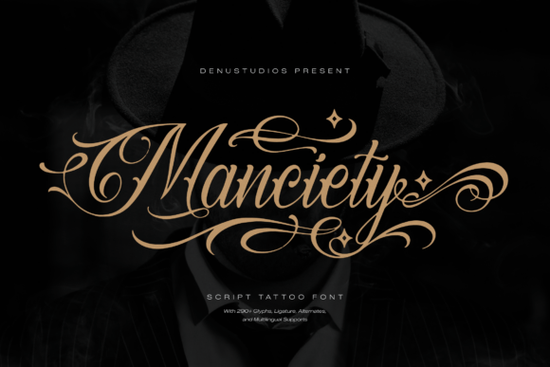
If you're looking for a bold, expressive script font that stands out in high-end branding, Manciety Font is a strong choice. It’s designed with calligraphic detail and dramatic contrast, making it ideal for projects where impact matters like logos, packaging, or editorial design. The font captures the raw energy of classic Chicano lettering while maintaining a polished, artisanal feel.
What makes Manciety Font special?
Manciety isn’t just another script font it’s built for statement-making designs. Its high-contrast strokes and sweeping flourishes give it a dynamic presence. Whether you're designing a luxury streetwear label or a custom car wrap, this font adds instant visual weight and character. It works especially well when paired with clean layouts or minimalist backgrounds, letting the type do the talking.
The style leans into masculine energy without being overly aggressive. Think of it as refined rebellion: powerful but intentional. This balance makes it suitable for brands that want to feel authentic and distinctive, not trendy or fleeting.
Where can I use Manciety Font effectively?
Designers often turn to Manciety for:
- Branding – Ideal for masculine grooming products, premium skincare lines, or niche lifestyle brands.
- Apparel & Merchandise – Great for t-shirts, hoodies, and caps, especially in streetwear or urban fashion.
- Automotive Design – Perfect for custom vehicle wraps, decals, or interior branding.
- Editorial & Print – Works beautifully in magazine headers, book covers, or event posters.
You’ll find it fits naturally in any project where you want to communicate strength, craftsmanship, and individuality.
How does it compare to other fonts in its category?
While many script fonts lean toward softness or femininity, Manciety brings a different kind of elegance one rooted in resilience and artistry. If you’ve used similar fonts like Delighton Script or Phatin Angler, you’ll notice Manciety has more structure and sharper contrasts. It’s less delicate, more commanding.
For those who prefer a slightly wilder look, Messy Type Bundle offers a looser, hand-drawn feel. But if you need precision with personality, Manciety strikes a better balance between control and flair.
Looking for something lighter? The Skinny Font delivers a sleek, minimal aesthetic but lacks the drama Manciety offers. Each font serves a purpose, and Manciety fills a unique space in the world of premium script typography.
Is Manciety easy to use in design software?
It supports multiple languages and includes full OpenType features, so you can adjust ligatures and swashes to match your project’s mood. Whether you’re creating a one-off logo or scaling a brand across multiple platforms, it performs reliably.
What should I keep in mind before using it?
Because of its bold nature, Manciety works best at larger sizes. Use it sparingly in body text save it for headlines, titles, or key branding elements. Pair it with neutral or simple sans-serif fonts to keep the focus on the script.
Quick checklist before using Manciety Font
- ✓ Test the font at different sizes to see how it reads
- ✓ Use only in headings or standout elements not long paragraphs
- ✓ Pair with clean, non-distracting background colors
- ✓ Explore alternate characters to add variety